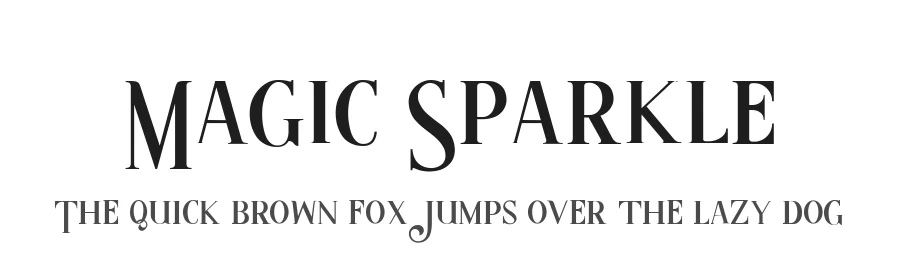
About Alviona Font
Alviona Specifications
Alviona Font is a decorative font that shines as a display or heading face. Pair it with a clean sans-serif or serif font for body text β the contrast creates a clear hierarchy while the two styles stay balanced and easy to read.